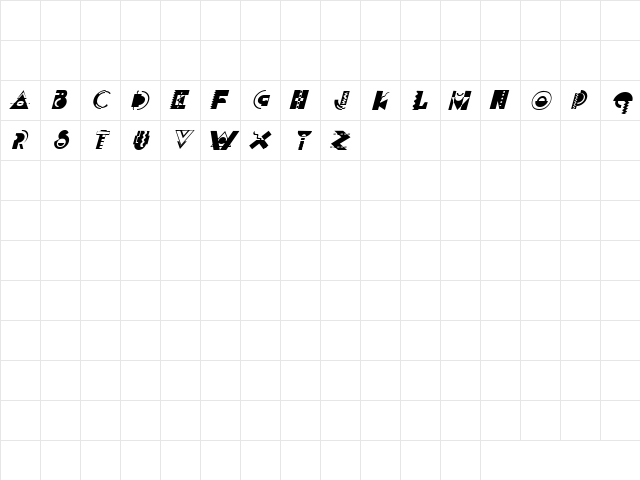
Loss Of Control 4 Italic Font Preview
Loss Of Control 4 Italic
Design Context for Loss Of Control 4 Typeface
Loss Of Control 4 is a composed and adaptable typeface that performs quietly and consistently across a wide range of design contexts. The slanted form adds forward momentum and visual energy.
Pro Tip: Try Loss Of Control 4 for annotation and caption copy alongside an upright companion — the contrast in angle creates a dynamic but ordered typographic system.